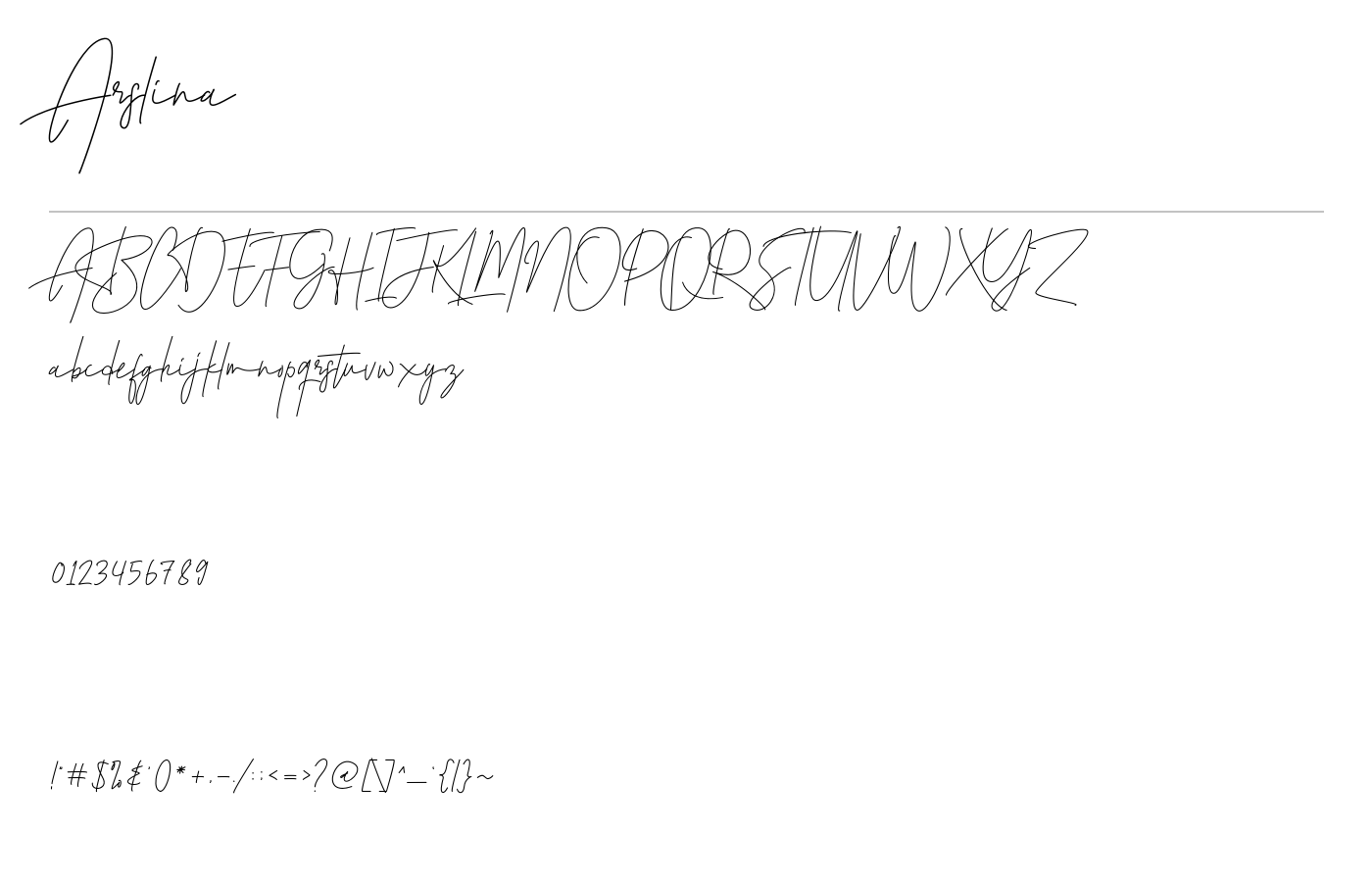
Arslina is a delicate, modern script font featuring thin, flowing strokes with a hand-drawn, casual elegance. Its tall, narrow letterforms and slightly irregular lines give it a personal and artistic feel, making it ideal for creative projects, branding, and invitations that seek a stylish yet approachable look. This font works beautifully for designs that want to convey originality and a light, sophisticated touch.
Arslina Font
About Arslina Font